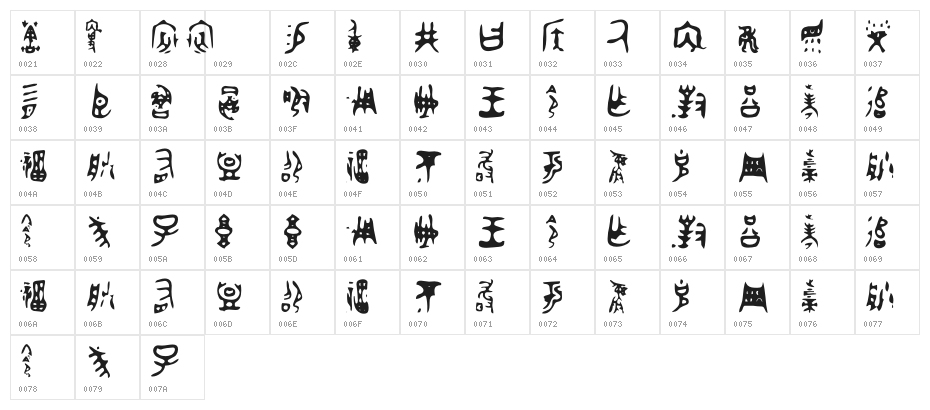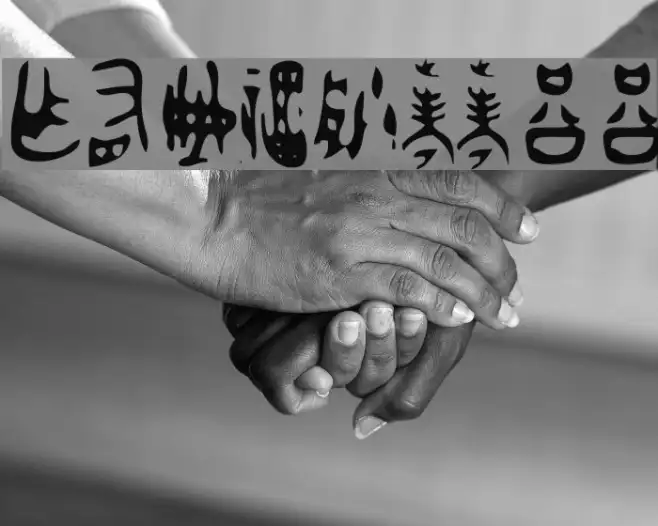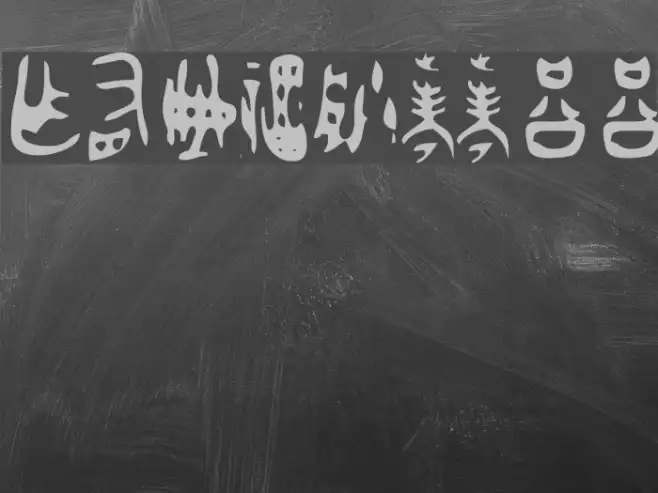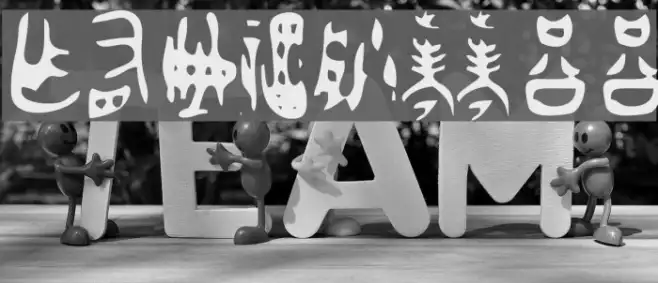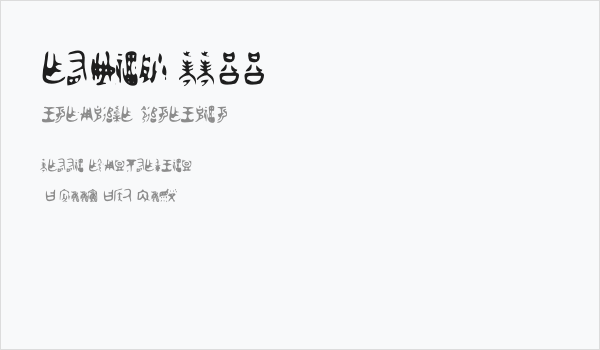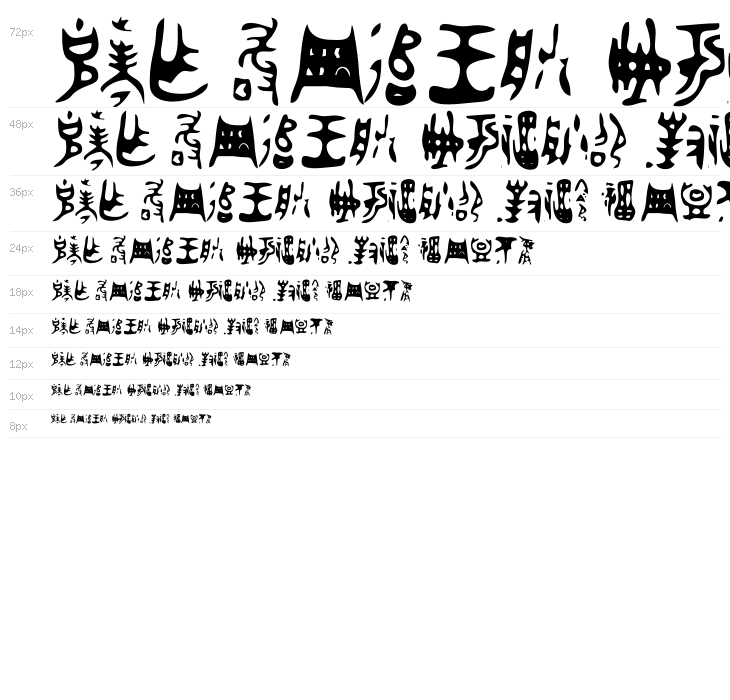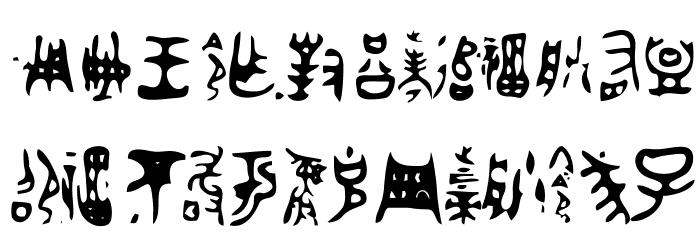
Elbow-hhgg Font
Elbow-hhgg Description
Highly decorative and abstract font with glyphs resembling ancient pictographs or symbolic script, featuring irregular shapes and variable stroke thickness, giving it an enigmatic and artistic appearance.
| Overall Style | Decorative, Ancient, Mystical |
| Use Case | Logos, Posters, Titles, Artistic projects |
| Proposed Projects | Fantasy book covers, game titles, movie posters, mystical or ancient-themed branding, art installations. |